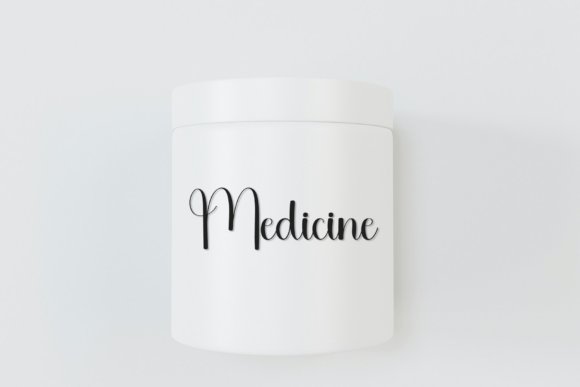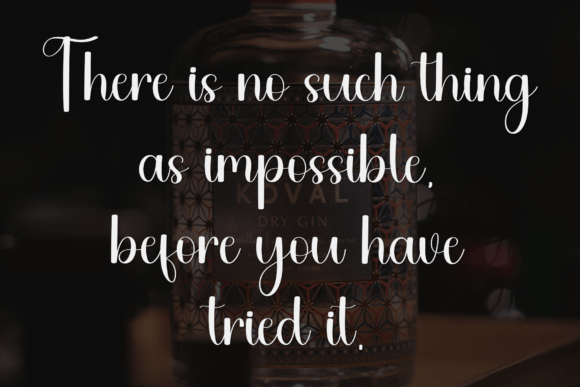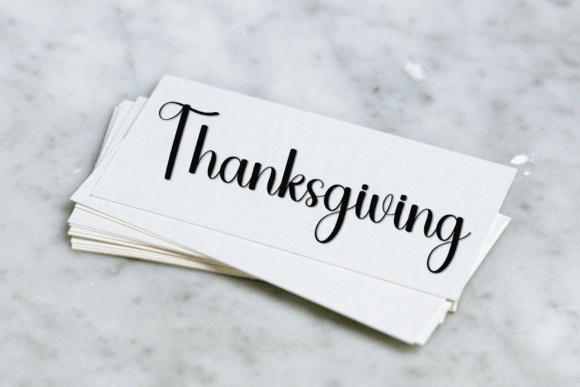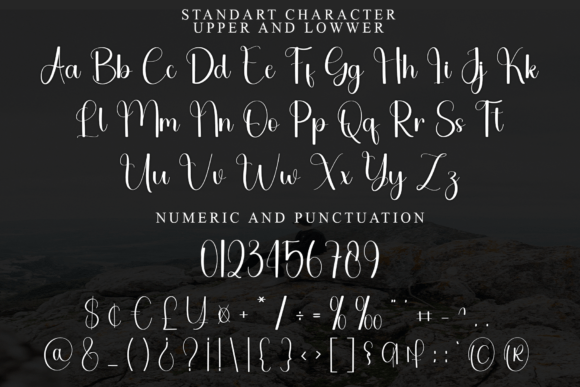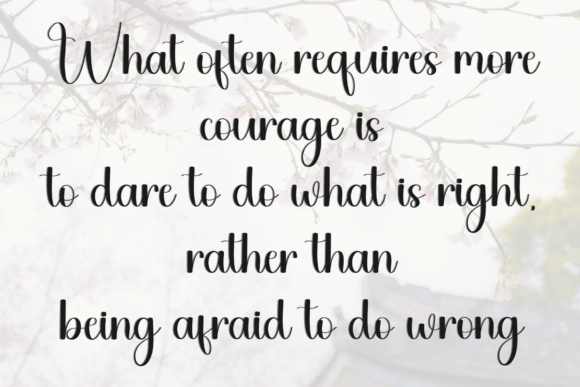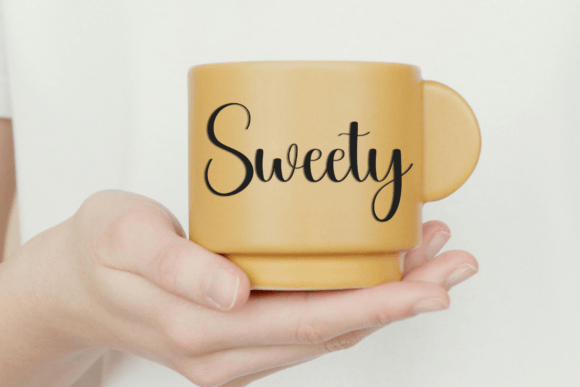
The Perfect Recipe for Your Design Projects
Imagine you’re in the middle of a creative session, surrounded by papers, paint, and endless possibilities. You’re searching for that one special ingredient to elevate your design and make it truly unique. This is where the Buttermilk Font comes in – a beautiful and eye-catching font that adds a touch of softness and elegance to any project.
Designed with a distinctive character, this font is perfect for designers who want to add a personal touch to their work. Its versatility and compatibility with various applications make it an ideal choice for a wide range of products, from crafts to digital designs. Whether you’re working on a new logo, flyer, or website, the Buttermilk Font is sure to enhance your designs and make them appealing to many audiences.
Buttermilk Font Key Features
- Unique Characteristics: Buttermilk features a distinctive, hand-drawn aesthetic with a mix of elegant and rustic elements, making it suitable for various design applications.
- Language Support: The font includes a wide range of languages, including Latin, Greek, Cyrillic, and more, with advanced typographic features like ligatures and swashes.
- Font Weight and Style: Buttermilk is available in multiple weights, from Light to Bold, and various styles, including Regular, Italic, and Oblique, offering versatility for different design needs.
Designer Review: Buttermilk Font
Overall, I think Buttermilk Font has some great qualities, but it also has some areas that need improvement. Here’s my honest review:
- Unique and quirky design: Buttermilk Font has a distinctive, hand-drawn feel that’s perfect for adding some personality to your designs.
- High-quality vector graphics: The font is built with high-quality vector graphics, making it perfect for scaling up or down without losing any detail.
- Good legibility: Despite its unique design, Buttermilk Font is still easy to read, making it a great choice for body text or headings.
- Not suitable for large blocks of text: While Buttermilk Font is great for short phrases or headings, it can be overwhelming to read large blocks of text in this font.
- Limited character set: Buttermilk Font has a relatively small character set, which may limit its usability for certain projects or languages.
- Not suitable for formal or professional designs: Buttermilk Font’s quirky design may not be suitable for formal or professional designs, such as business reports or resumes.
Overall, I think Buttermilk Font is a great choice for designers who want to add some personality to their projects. However, it’s not suitable for every project, and designers should be aware of its limitations before using it.
Tips for Getting the Most Out of Buttermilk Font
Use the Buttermilk font for designs that require a vintage or distressed look. Pair it with other fonts to create a unique and eye-catching combination. Experiment with different font sizes and colors to achieve the desired effect.
The Buttermilk font is commonly used for:
- Designing vintage-inspired posters and flyers
- Creating distressed or worn-out text effects
- Adding a touch of nostalgia to modern designs